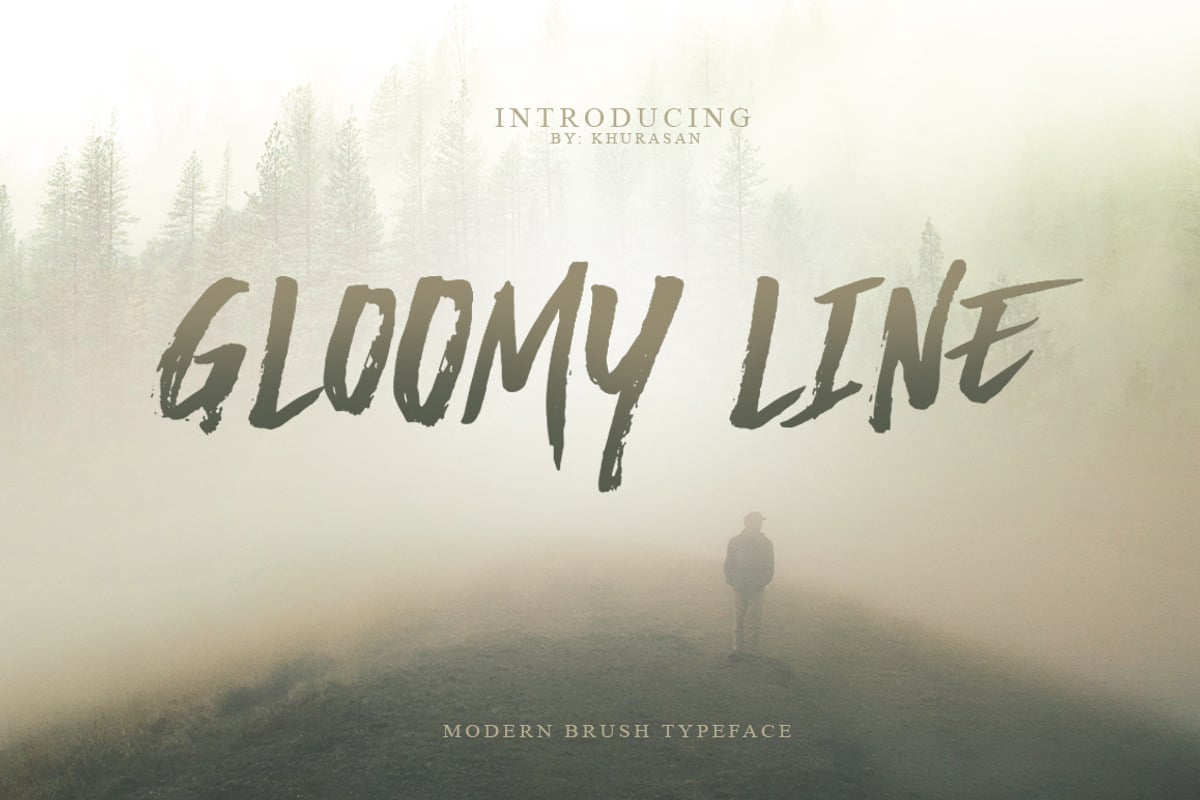
Gloomy Line Brush Font
Stand out from the crowd with this quirky brush font that brings rough, edgy personality to your designs! Gloomy Line Brush is a fun marker pen font with a distinctive quirky style and feel. Its rough approach makes it the perfect companion when you want something edgy that truly stands out from the crowd. Files included: Gloomy Line.otf Gloomy Line.ttf Gloomy Line Italic.otf Bonus Halloween Doodle Vector (ai cs6 or higher) Thank you for checking and I hope you enjoy it. A...